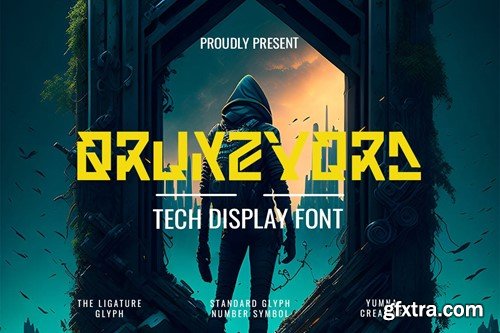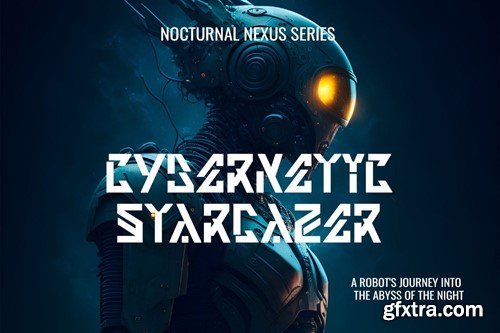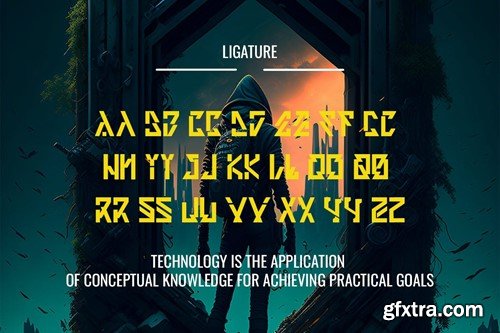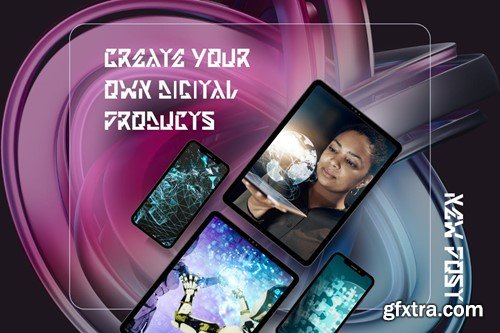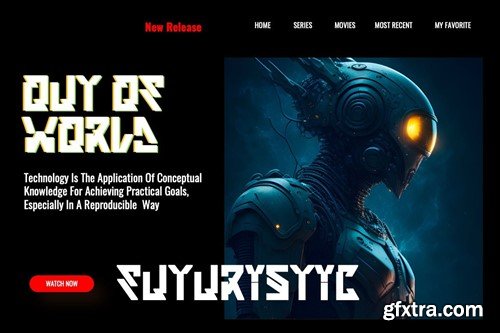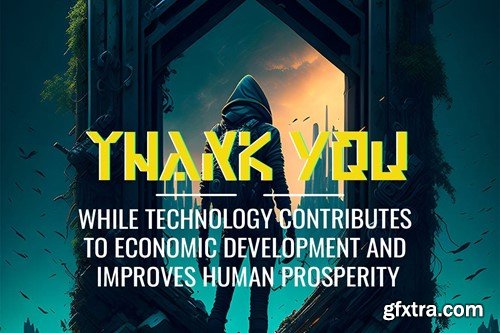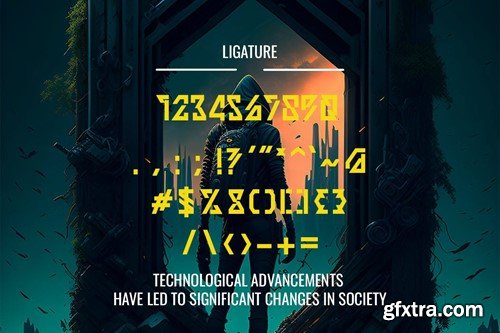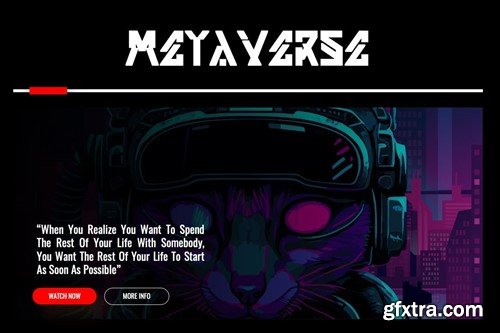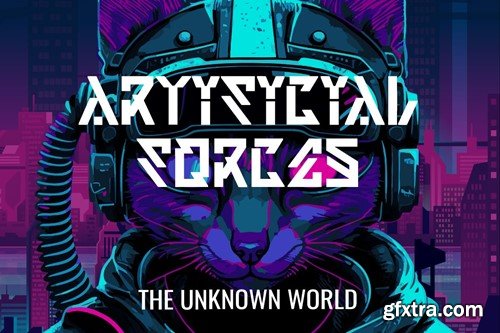
Qrunzvord - Tech Font L26WGRE
Introducing Qrunzvord - Tech Font This Font is a delicate, elegant and flowing handwritten font. It has beautiful and well as a unique blend of ligatures a letter, so that the authors compose it with a and little swirly embedding, so that a modern font is formed and ready to make a statement by adding elegant and unique flair to your next design project. Add it to your most creative ideas and notice how it makes them come alive! FEATURES FILES INCLUDED Got any questions? Drop me a line and I'll be happy to answer!
• Numbering & Punctuation
• Ligature
• Multilingual Supports